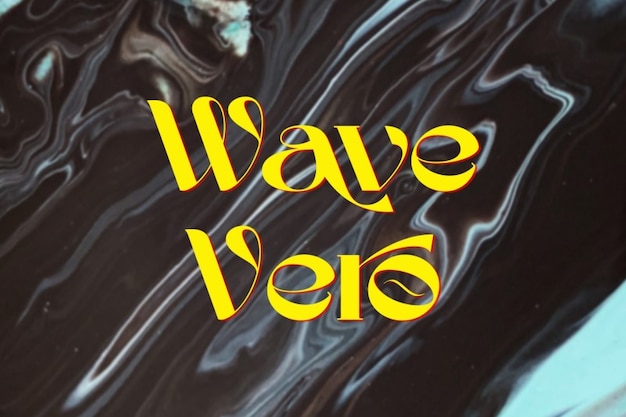
Wave Vero
Wave Vero Font
Wave Vero is a font that effortlessly marries creative flair with stylish and decorative elements. Its characters are intricately designed, exuding sophistication and an artistic charm that adds a touch of trendy creativity to your text. Whether you're working on projects that demand a unique, imaginative touch, branding, or any creative endeavor that requires a hint of artistic flair, Wave Vero effortlessly transforms your text into a captivating masterpiece. This font captures the essence of creative design, offering a stylish and decorative look that's perfect for those who appreciate the power of artistic and expressive typography.